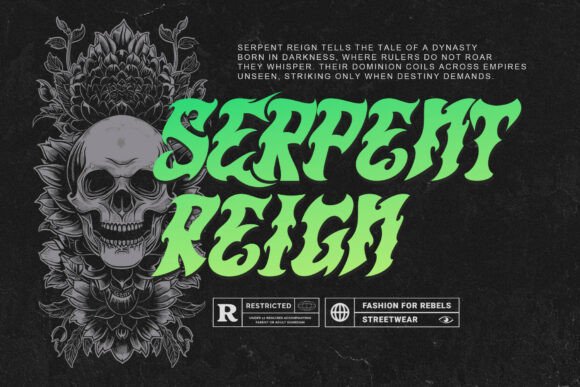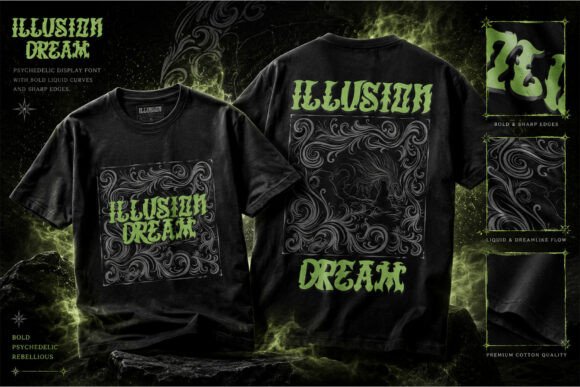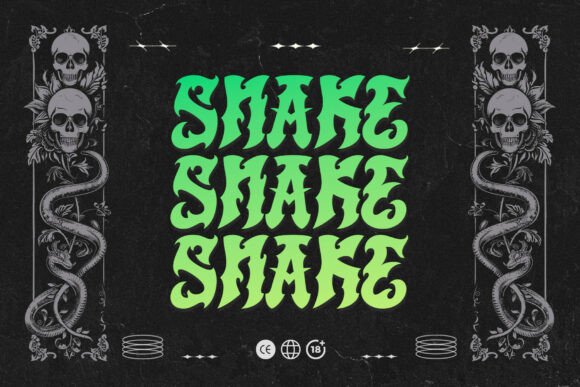
Introduction to Kelmora Font
Kelmora is a bold psychedelic blackletter display font crafted with a strong gothic structure and expressive organic curves, delivering a distinctive visual identity that feels powerful, artistic, and contemporary.
Inspired by underground typography, vintage psychedelic aesthetics, and modern experimental design, Kelmora offers dramatic letterforms that instantly capture attention while maintaining strong readability and visual balance Perfect for album covers, poster design, product packaging, branding, beverage labels, creative advertising, gaming visuals, editorial layouts, and premium display projects that require a unique and memorable typographic presence.
Why Choose Kelmora Font?